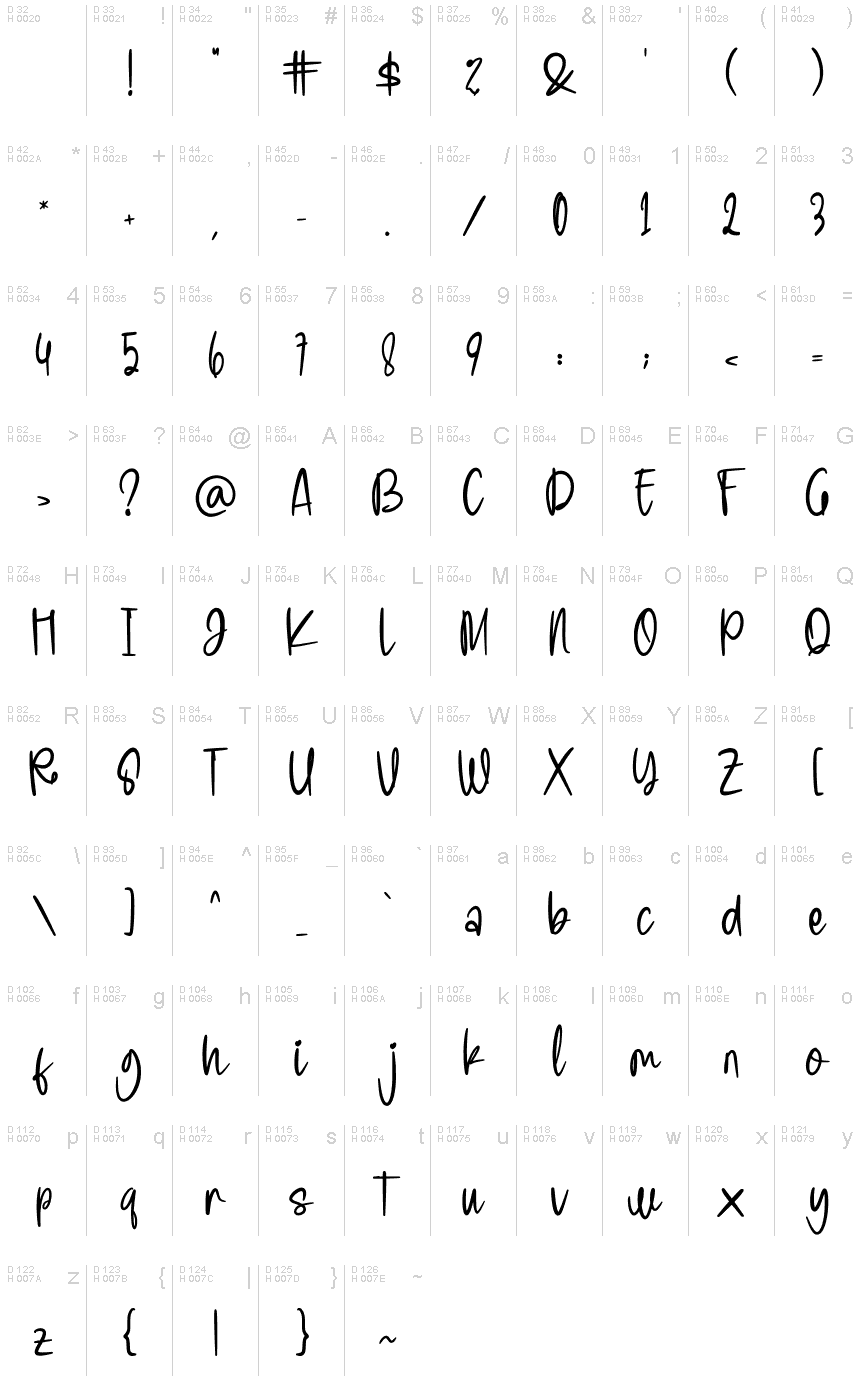
Angelly
Angelly, a captivating creation by acclaimed designer Al Ghul, is a mesmerizing handwritten font that effortlessly blends elegance with creativity. With its semi-light weight and semi-condensed width, Angelly exudes a delicate charm ideal for various projects. From enchanting wedding invitations to artistic branding materials, this font adds a touch of sophistication to any design endeavor. Its fluid strokes and graceful curves bring an air of authenticity to product packaging, while its legibility makes it equally suitable for eye-catching headlines in magazines or stylish blog posts. Discover the endless possibilities that Angelly offers and let your imagination soar.